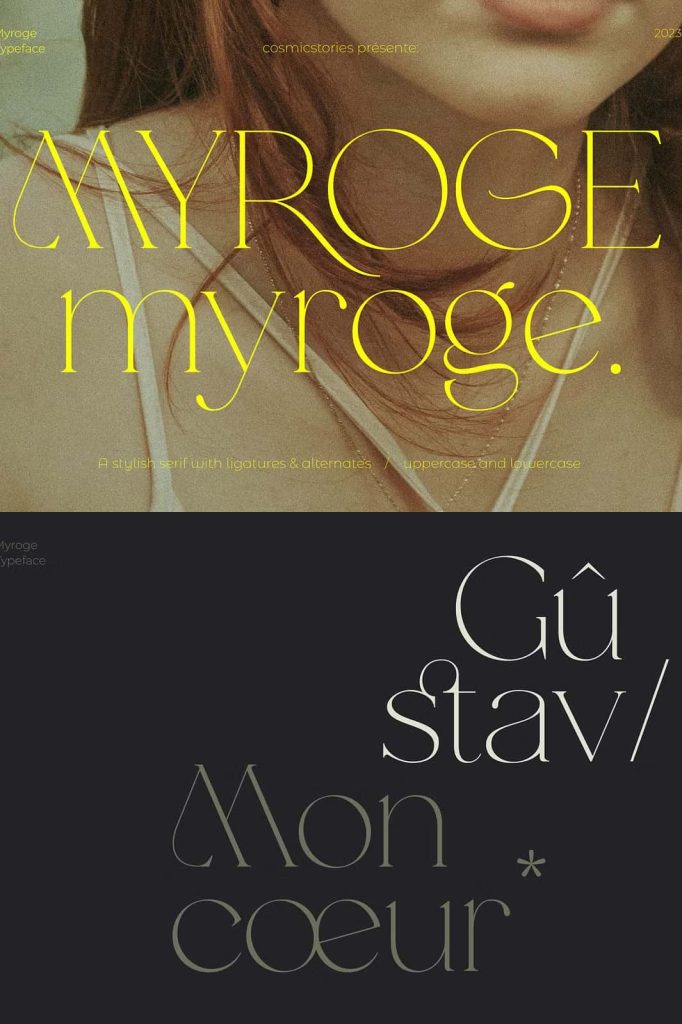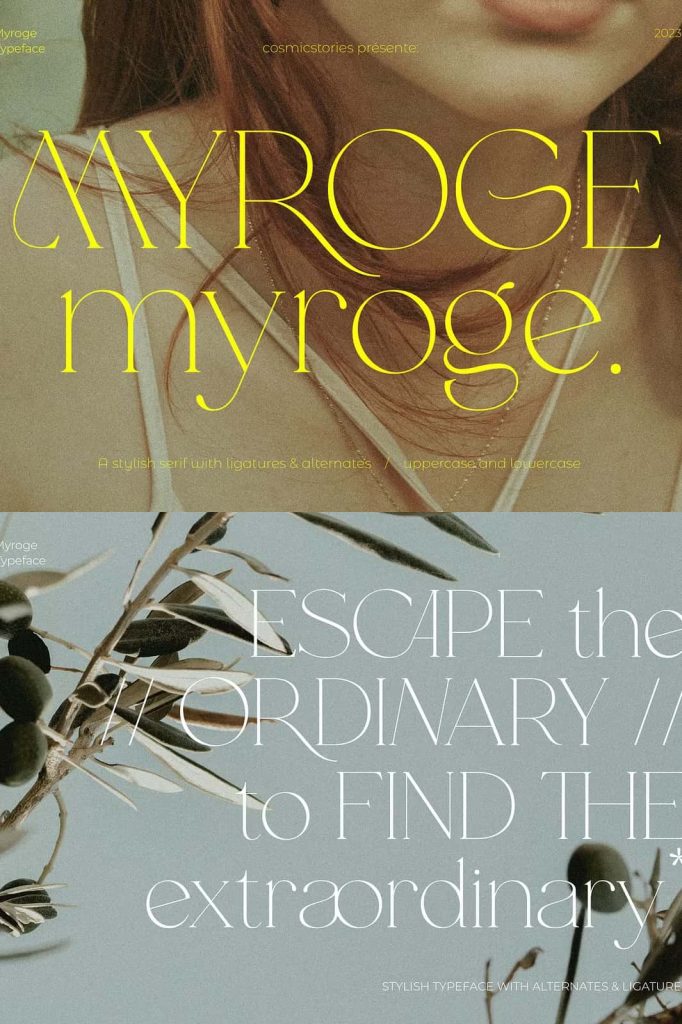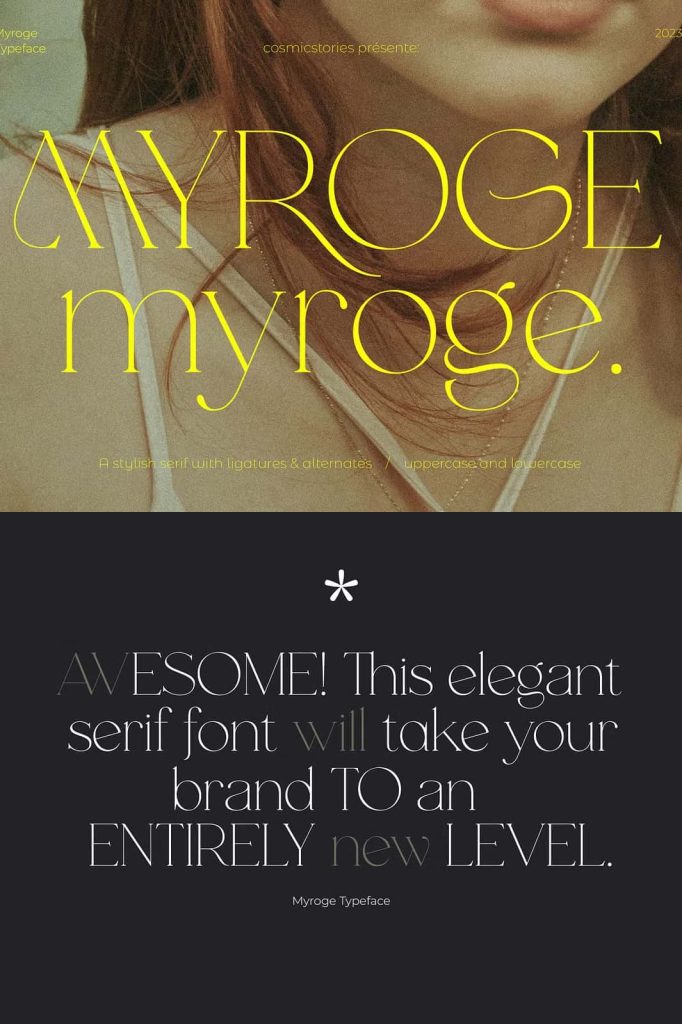
MYROGE – An Elegant Serif Typeface for Refined Branding
MYROGE is an exceptionally elegant and delicate serif font created for designers who want to communicate sophistication, luxury, and timeless beauty. With its graceful letterforms and carefully balanced proportions, this typeface delivers a refined visual presence that instantly elevates any design. MYROGE is designed to feel light and fragile while remaining confident and readable, making it a powerful choice for premium branding and high-end creative projects.
A Typeface Defined by Elegance and Subtlety
The defining character of MYROGE lies in its refined structure and gentle contrast. Each letter is shaped with precision, allowing thin strokes and soft curves to flow naturally across the page. This careful construction gives the font a fragile and graceful appearance without sacrificing clarity or professionalism.
MYROGE brings a sense of calm confidence to typography. Rather than overpowering a layout, it enhances the overall composition with subtle beauty. This makes it especially suitable for designs that aim to feel luxurious, editorial, or fashion-forward. The font draws attention through detail and balance, not excess.
Beautiful Ligatures and Alternate Glyphs
MYROGE includes a thoughtfully designed collection of ligatures and alternate glyphs that allow designers to customize their typography with ease. These features introduce elegant connections between letters, creating smooth transitions and refined word shapes. By activating ligatures and alternates, designers can transform standard text into expressive and visually rich compositions.
The alternate glyphs offer flexibility in tone and style, enabling subtle variation across headlines, logos, and brand marks. This level of typographic control helps create unique designs that feel intentional and bespoke. MYROGE empowers designers to fine-tune their work and achieve a higher level of visual sophistication.
Crafted for High-End Branding and Logos
MYROGE excels in branding and logo design, where elegance and distinction are essential. Its delicate serifs and refined details create memorable wordmarks that feel premium and timeless. Brands in fashion, beauty, jewelry, lifestyle, and luxury markets can rely on MYROGE to communicate quality and exclusivity.
The font’s elegant structure ensures that logos remain clear and recognizable across different sizes and applications. Whether used on packaging, websites, or printed materials, MYROGE maintains its refined identity and visual impact.
Perfect for Editorial and Creative Layouts
In editorial design, MYROGE brings sophistication and readability together. It performs beautifully in magazine layouts, book covers, lookbooks, and promotional materials. The font’s balanced proportions allow it to shine in both headlines and feature text, adding elegance without overwhelming the content.
Designers can pair MYROGE with minimal layouts and generous spacing to create clean, modern compositions that feel elevated and intentional. Its fragile aesthetic complements photography and visual storytelling, enhancing the overall narrative of the design.
Multilingual Support for Global Design
MYROGE includes multilingual support, making it suitable for international projects and global brands. This feature ensures consistency across different languages while preserving the font’s elegant character. Designers can confidently use MYROGE in multilingual branding systems, editorial content, and digital platforms.
The inclusion of extended language support reflects the typeface’s professional quality and versatility. It allows brands to maintain a cohesive visual identity across markets and audiences without compromising on style or readability.
Upgrade Your Brand with Timeless Elegance
MYROGE is more than a serif font; it is a design asset that helps elevate brands to a new level of sophistication. With its elegant letterforms, beautiful ligatures, alternate glyphs, and multilingual support, MYROGE provides the tools needed to create refined and memorable visual identities.
Whether you are building a luxury brand, designing an editorial layout, or crafting a high-end logo, MYROGE delivers elegance, flexibility, and timeless appeal. This serif typeface empowers designers to create work that feels graceful, confident, and unmistakably premium.